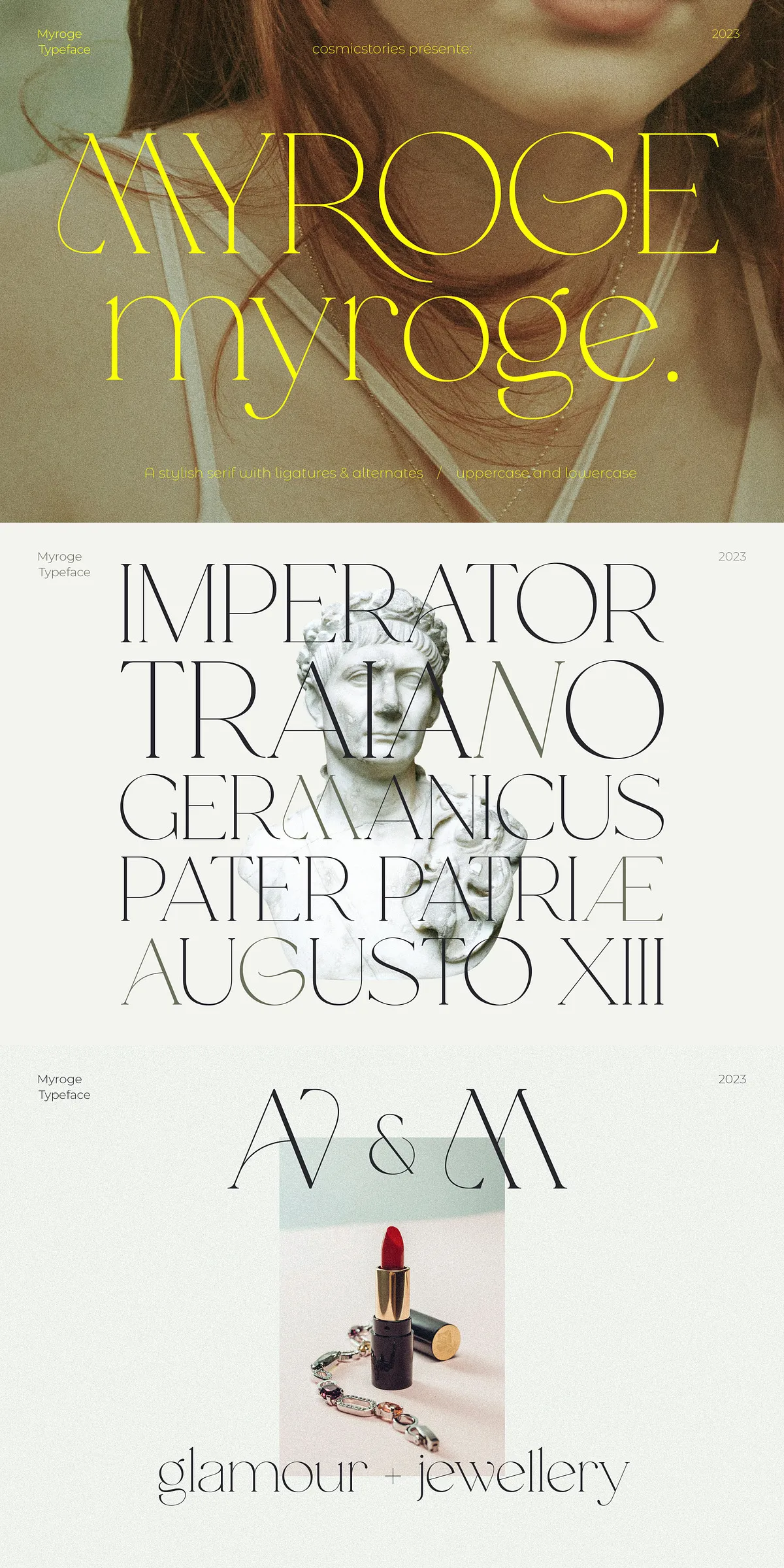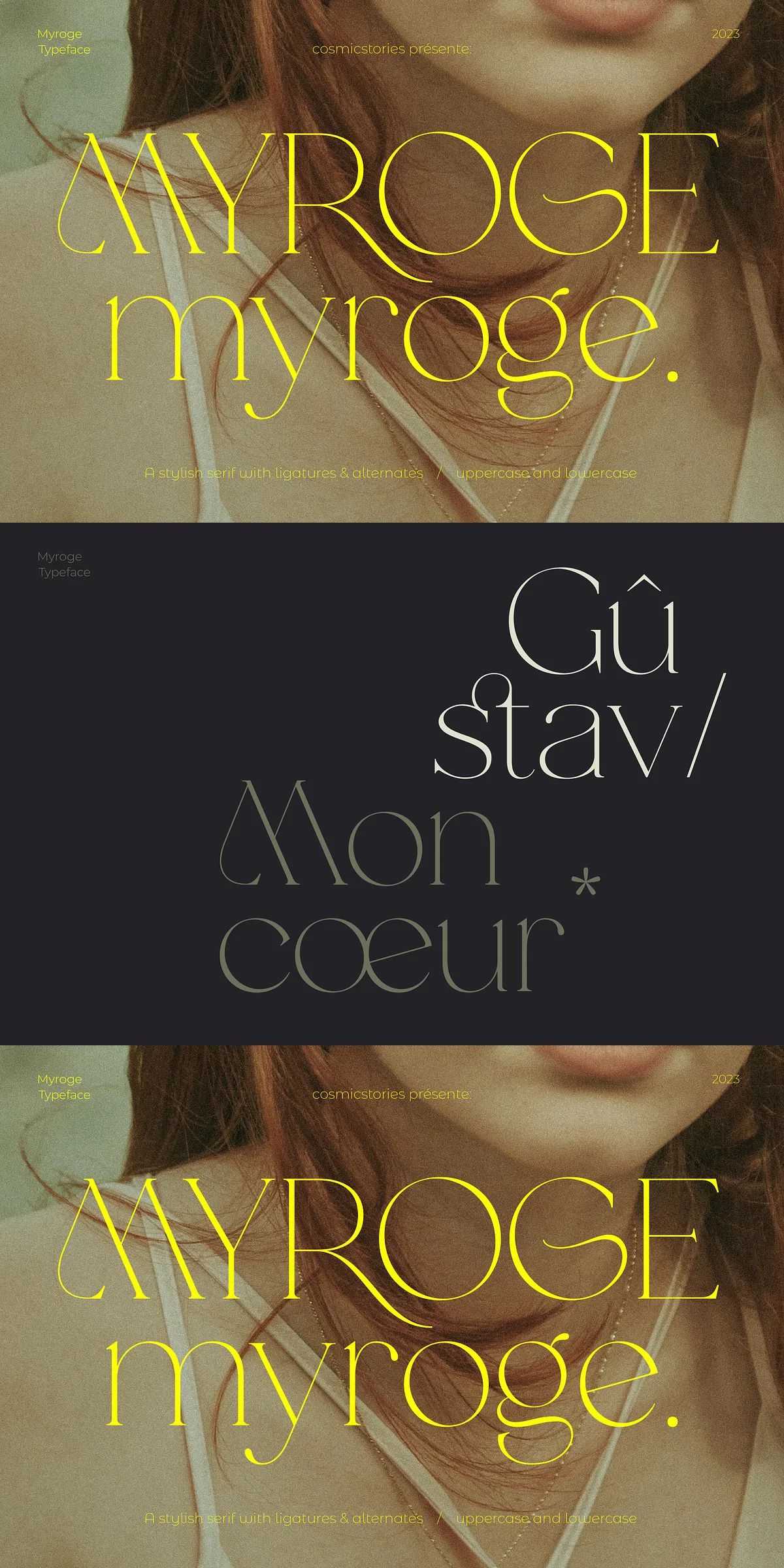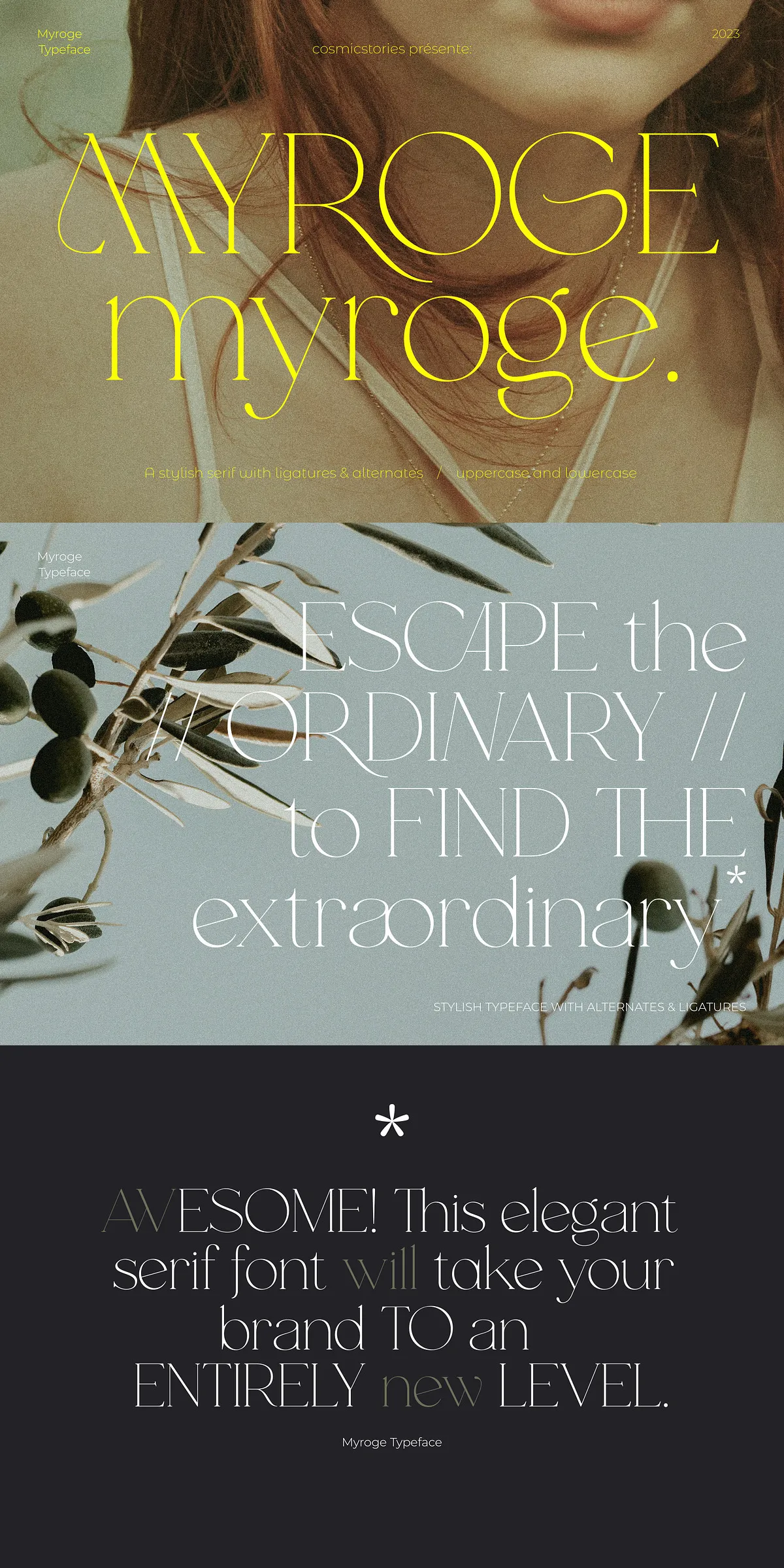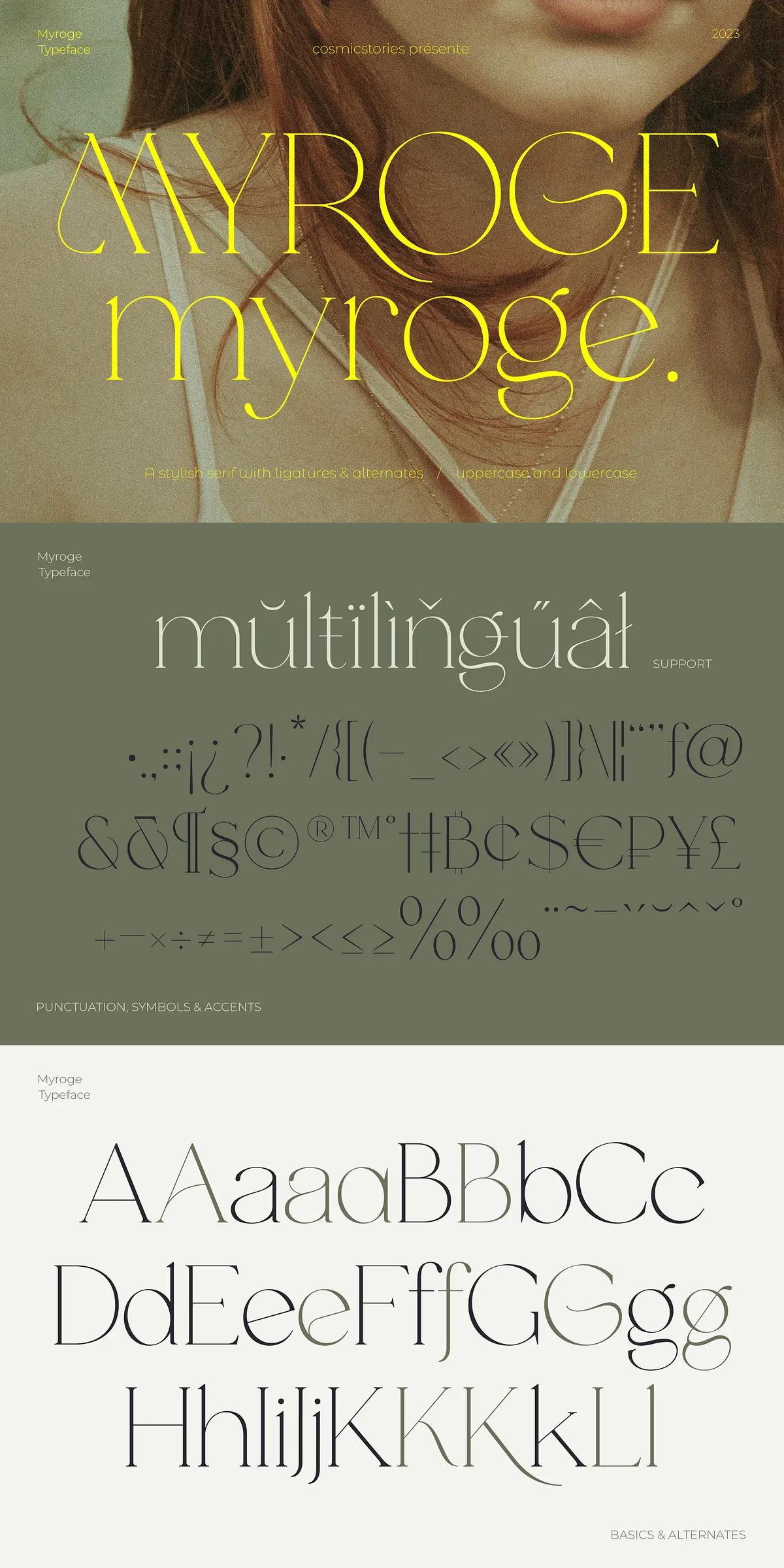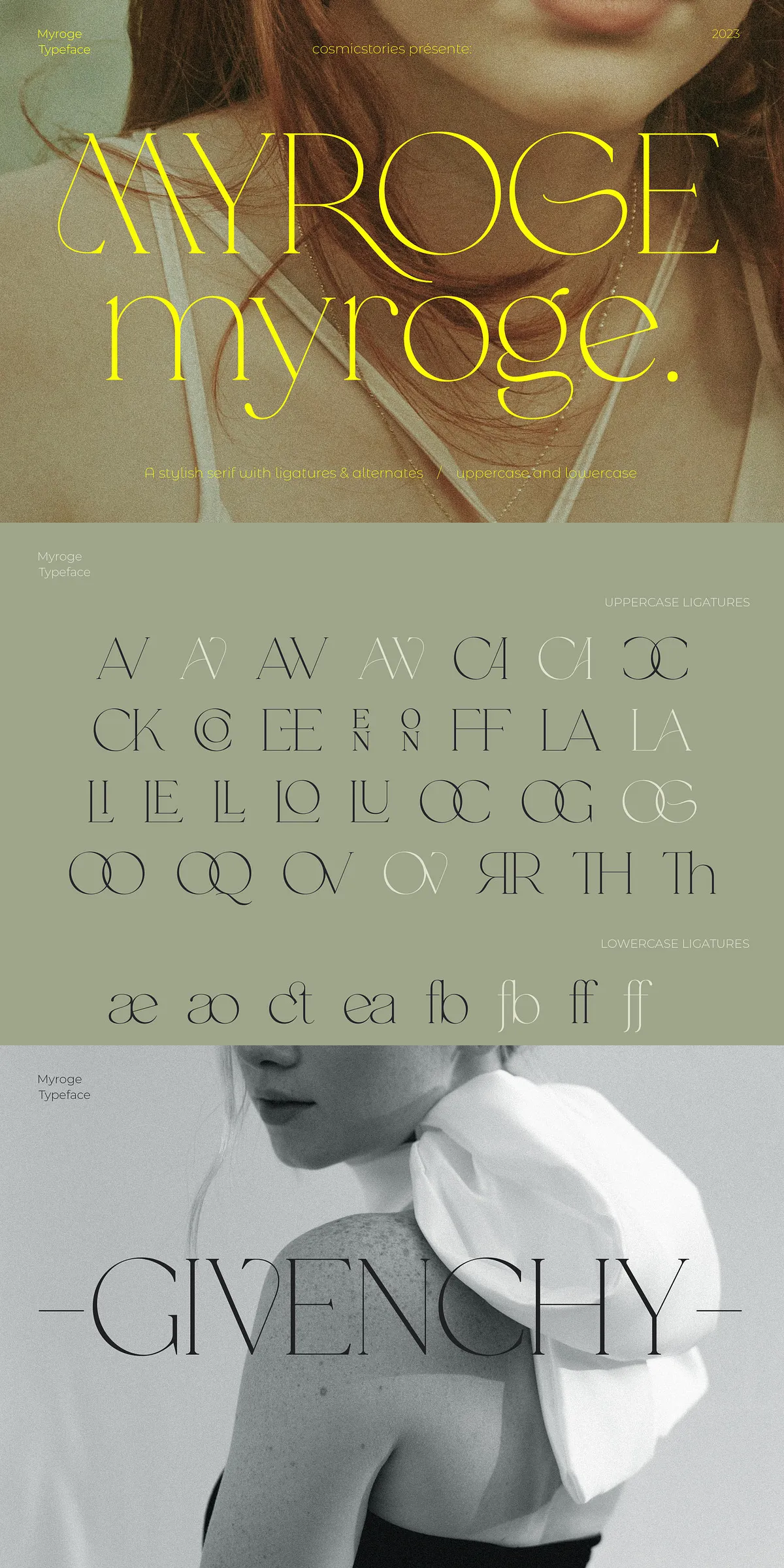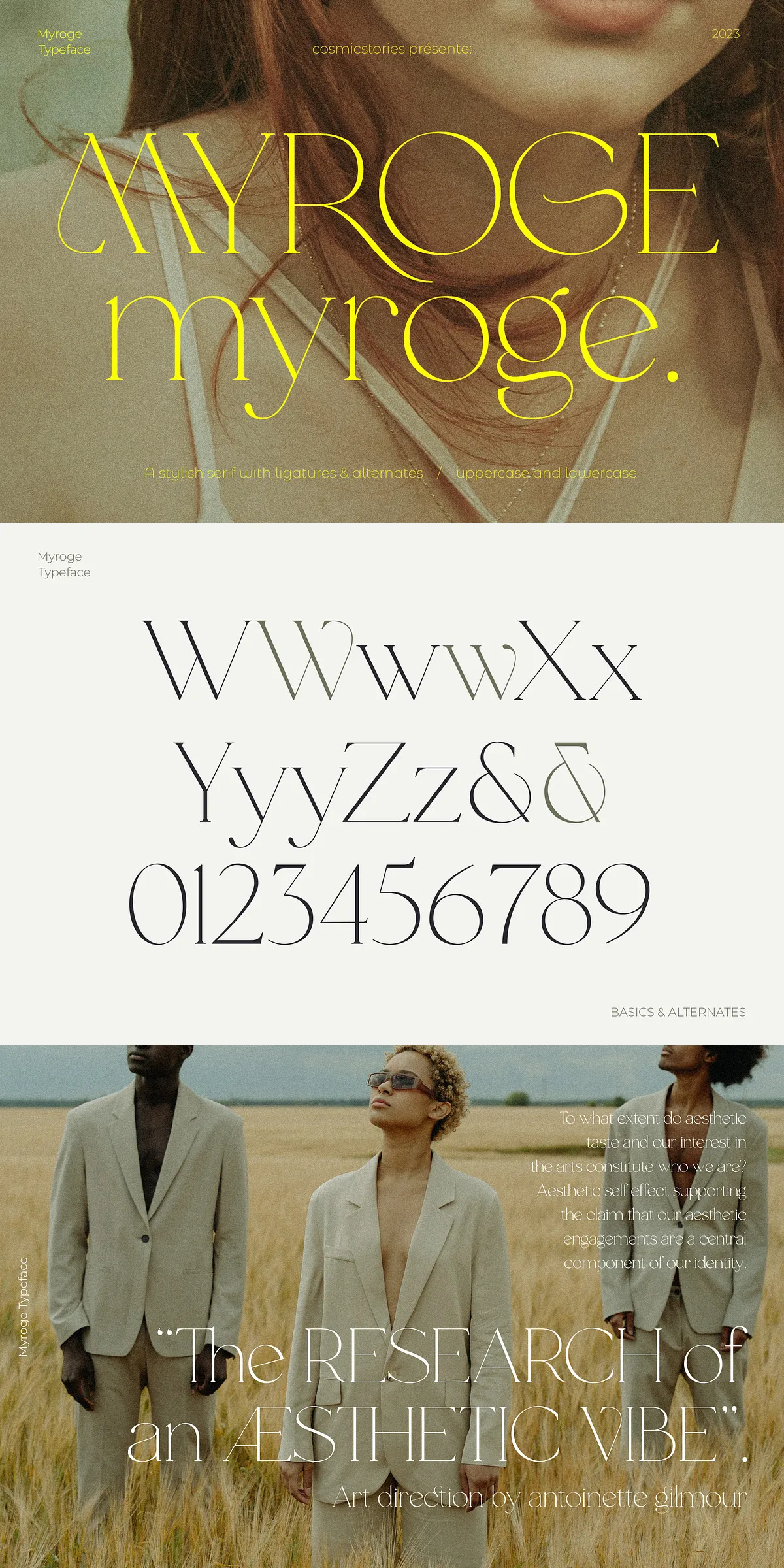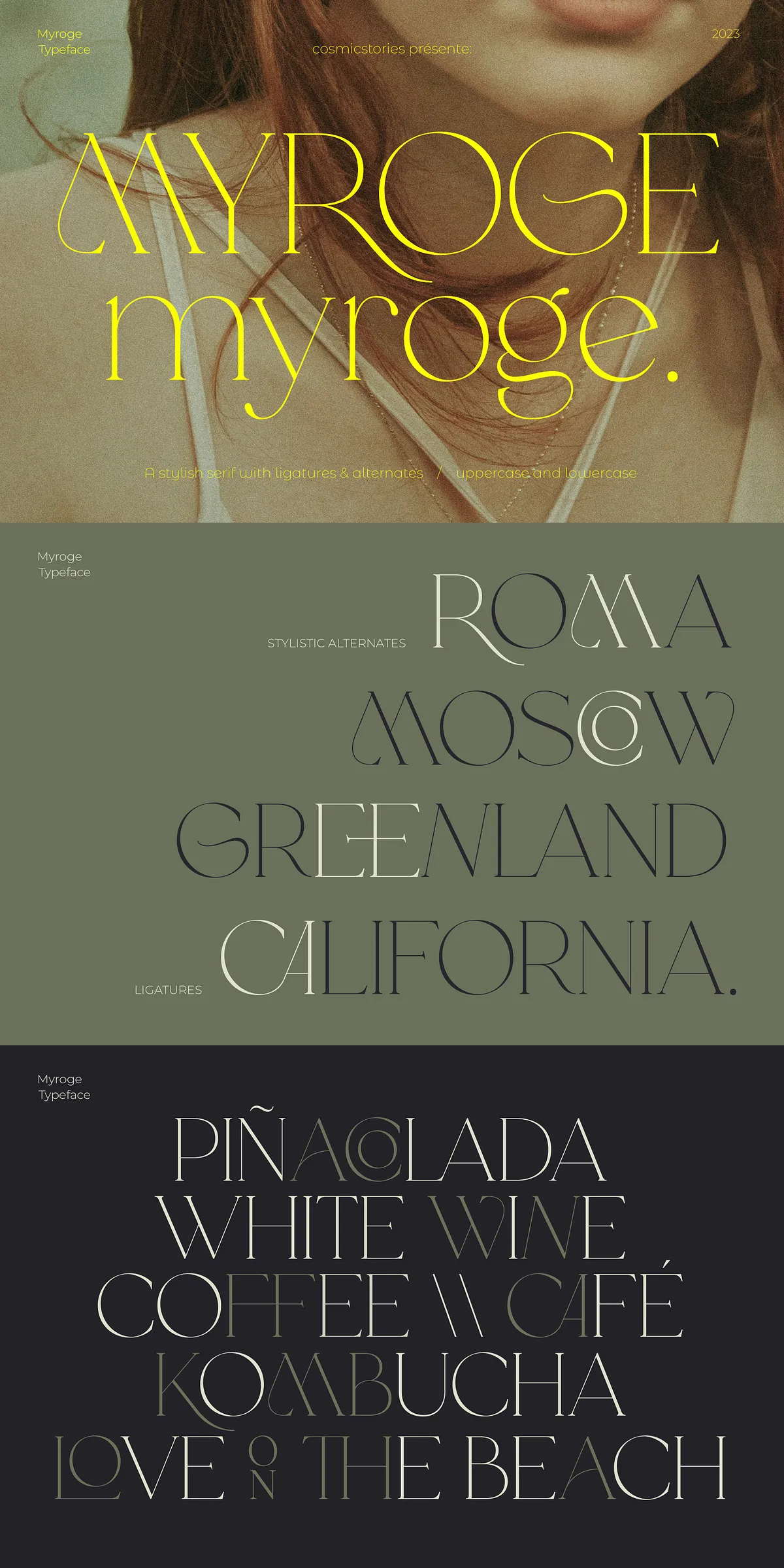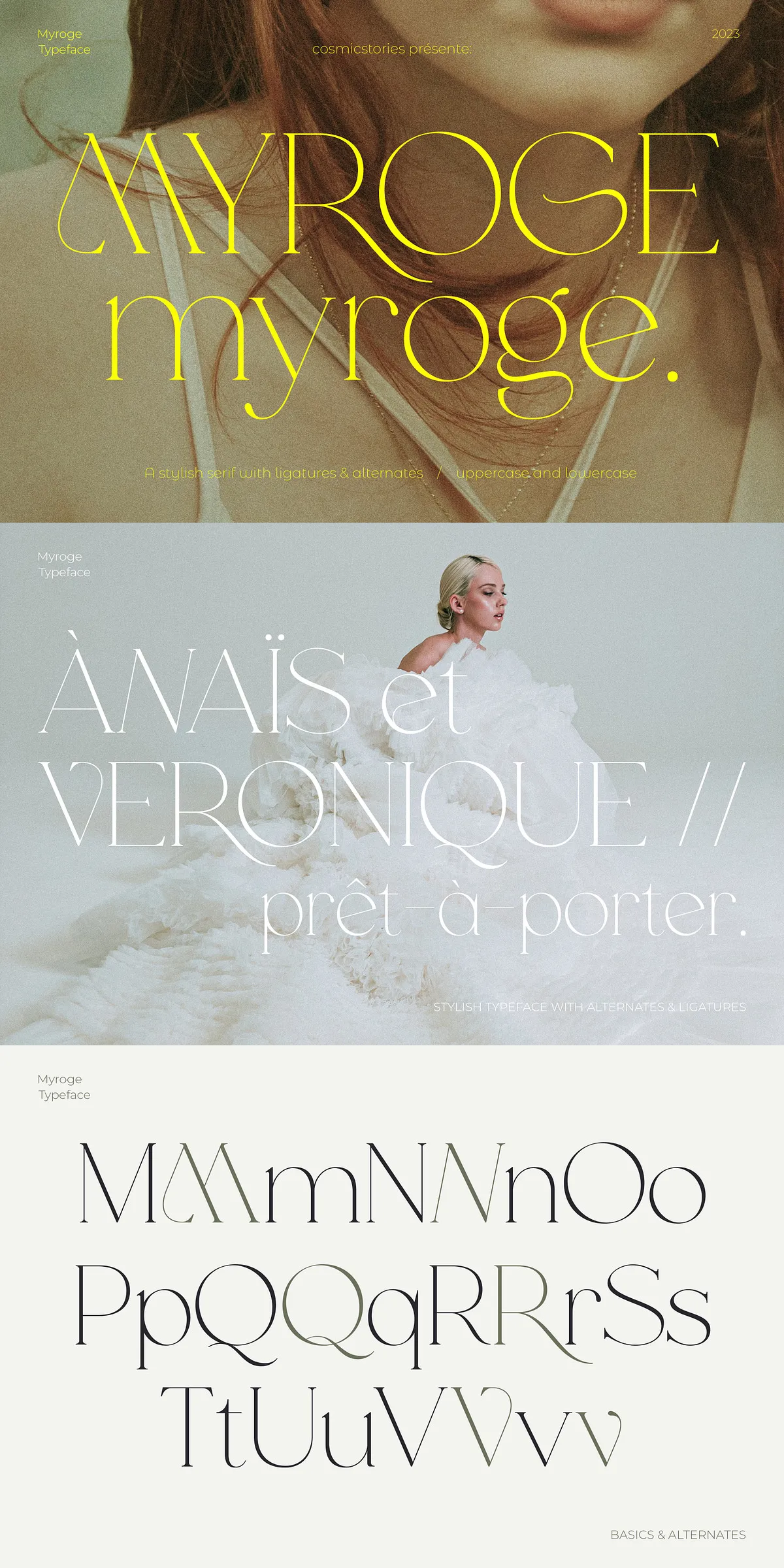
Step into a realm of refined elegance with Myroge, a serif typeface so meticulously designed, it feels like poetry in font form. Every stroke is deliberate, every ligature purposeful, and every alternate glyph crafted to inspire emotion. Myroge doesn’t just convey words — it whispers grace, sophistication, and quiet power. Whether you’re building a luxury brand identity, designing a wedding invitation, or creating a mood-driven campaign, Myroge turns your message into art.
The Art of Delicate Strength: A Typeface Built for Impact
Myroge is not merely elegant — it’s fragile in beauty, strong in presence. This serif font captures the tension between delicacy and strength, blending soft curves with bold structural integrity. The slender strokes contrast with the bold terminals, creating visual rhythm that captivates the eye and lingers in the mind.
With a full suite of OpenType features, Myroge offers over 1,000 meticulously crafted glyphs, including:
- Uppercase and lowercase letterforms with stylistic alternates for dynamic visual variety.
- Exquisite ligatures that eliminate awkward spacing and enhance reading flow.
- Complete multilingual support across Latin, Latin Extended, Greek, and Cyrillic scripts — ideal for global brands and international content.
- Full punctuation, numbers, symbols, and accent marks for seamless integration in any project.
Design with Intention — Where Every Glyph Tells a Story
Use Myroge to create emotional impact. Pair a Light variant for subtle elegance in logo design, or unleash the Bold weight for powerful headlines that command attention. The Italic version adds a layer of romantic expression, perfect for wedding invitations and curated brand stories.
Leverage alternate glyphs to add personality and uniqueness to your projects. Replace a standard ‘A’ with a flourished variant, or substitute a period with a delicate dot. These small choices elevate your work from professional to profoundly artistic.
Designed for the Creative Visionary — Versatility Without Compromise
Myroge isn’t confined to one genre. It thrives across a vast spectrum of design disciplines, from the intimate to the expansive:
Perfect Applications for Myroge
- High-End Branding & Logo Design: Position your brand as premium, refined, and deeply intentional.
- Wedding Invitations & Stationery Suites: Create timeless, romantic experiences that guests remember for life.
- Cosmetic & Spa Branding: Match the sensory appeal of your products with a font that embodies luxury and care.
- Greeting Cards & Social Media Promotions: Turn everyday messages into shareable moments of beauty.
- Quotes, Banners, & Editorial Layouts: Infuse your content with a sense of drama, elegance, and quiet confidence.
More Than a Font — A Creative Partner in Your Design Journey
Myroge is the product of deep craftsmanship and emotional design. It’s not just a set of letters on a screen — it’s a commitment to beauty, precision, and storytelling. By choosing Myroge, you’re not just selecting a font. You’re aligning yourself with a design philosophy that values intentionality, detail, and quiet power.